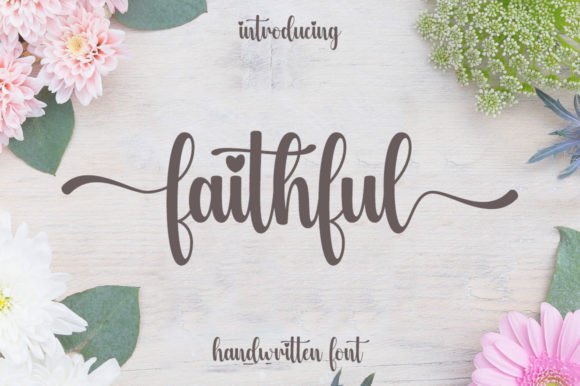
Journey into the Realm of Elegance with Faithful Font: A Script of Unparalleled Grace
In a world clamoring for individuality, where every stroke of genius yearns to find its unique voice, Faithful Font emerges as a symphony of elegance and charm. This exquisite script, crafted with the utmost attention to detail by the visionary Hardiboy Design, is not merely a collection of letters; it is an invitation to embark on a creative odyssey, where your imagination knows no bounds.
Faithful Font, as its name suggests, embodies unwavering devotion to artistry. Its fluid lines, reminiscent of a calligrapher's hand, dance across the page with a captivating rhythm. Each letter, meticulously designed, carries within it a story waiting to be told. Whether you're a seasoned design professional or a creative enthusiast seeking a touch of uniqueness, Faithful Font is your steadfast companion, guiding you through the labyrinth of self-expression.
Unleash the boundless potential of Faithful Font and witness how effortlessly it transforms ordinary words into captivating narratives. Its versatility is a testament to its adaptability, effortlessly gracing invitations, greeting cards, digital designs, and presentations with its timeless allure. Let your creativity soar as you explore the endless possibilities that await you with this captivating font.